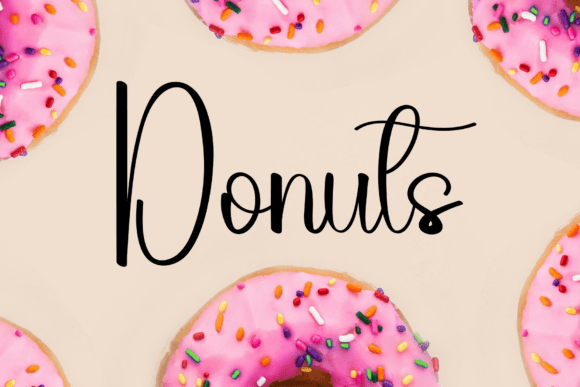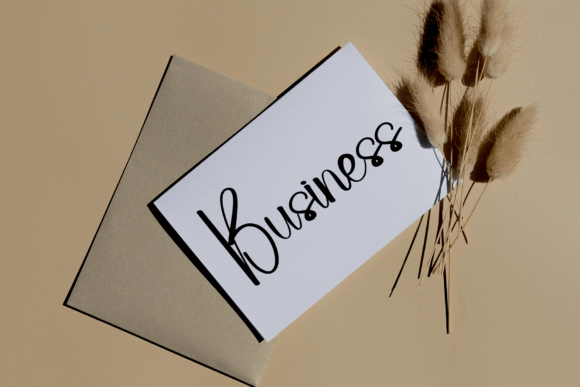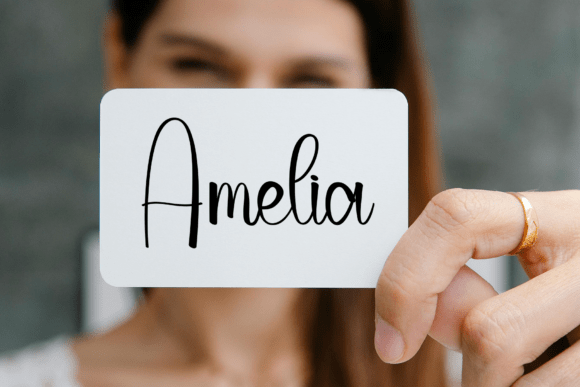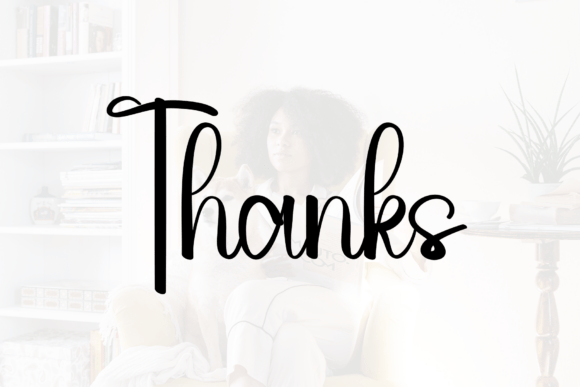
Introducing Darling Valentine Font: The Perfect Blend of Elegance and Casual Charm
In the world of typography, fonts play a crucial role in conveying the tone and personality of a brand or design. For designers and crafters looking for a font that exudes luxury, elegance, and a touch of casualness, Darling Valentine Font is an excellent choice. This beautiful handwritten font, designed to mimic the look of marker-drawn letters, is perfect for a wide range of applications, from branding and logos to wedding supplies, greeting cards, and marketing promotions.
The Unique Characteristics of Darling Valentine Font
Darling Valentine Font stands out with its relaxed and sporty feel, making it an ideal choice for designers who want to add a personal touch to their work. The font’s marker-drawn appearance gives it a unique, handcrafted look that is both elegant and casual. This versatility makes Darling Valentine Font suitable for various design projects, including:
- Branding: Create a lasting impression with a font that reflects your brand’s personality and style.
- Logos: Design a logo that is both luxurious and approachable, perfect for high-end brands or businesses looking for a friendly, yet sophisticated image.
- Wedding Supplies: Add a touch of elegance and romance to wedding invitations, stationery, and other materials.
- Greeting Cards: Create beautiful, heartfelt greeting cards for any occasion.
- Fashion and Lookbooks: Showcase your fashion designs or products with a font that exudes style and sophistication.
- Marketing Promotions: Elevate your marketing materials with a font that captures attention and conveys a sense of luxury.
Why Choose Darling Valentine Font?
Darling Valentine Font offers several benefits that make it a top choice for designers and crafters:
- Elegance and Sophistication: The font’s luxurious feel makes it perfect for high-end designs and projects that require a touch of elegance.
- Casual Charm: Despite its elegant appearance, Darling Valentine Font retains a casual, approachable feel that makes it suitable for a wide range of applications.
- Versatility: The font’s versatility allows it to be used in various design projects, from digital to print.
- Easy to Read: Darling Valentine Font is designed to be easy to read, making it perfect for body text and headlines.
Tips for Using Darling Valentine Font
To get the most out of Darling Valentine Font, consider the following tips:
- Pair with Other Fonts: Combine Darling Valentine Font with other fonts to create a unique and visually appealing design.
- Experiment with Colors: Play with different colors to find the perfect match for your design and brand.
- Use in Combination with Images: Pair Darling Valentine Font with high-quality images to create stunning visual content.
- Keep it Simple: Don’t overcomplicate your design – let the font speak for itself and keep your design clean and simple.
Darling Valentine Font is a beautiful, versatile font that offers the perfect blend of elegance and casual charm. Its unique, marker-drawn appearance makes it suitable for a wide range of design projects, from branding and logos to wedding supplies and marketing promotions. With its luxurious feel, ease of use, and versatility, Darling Valentine Font is an excellent choice for designers and crafters looking to add a personal touch to their work.